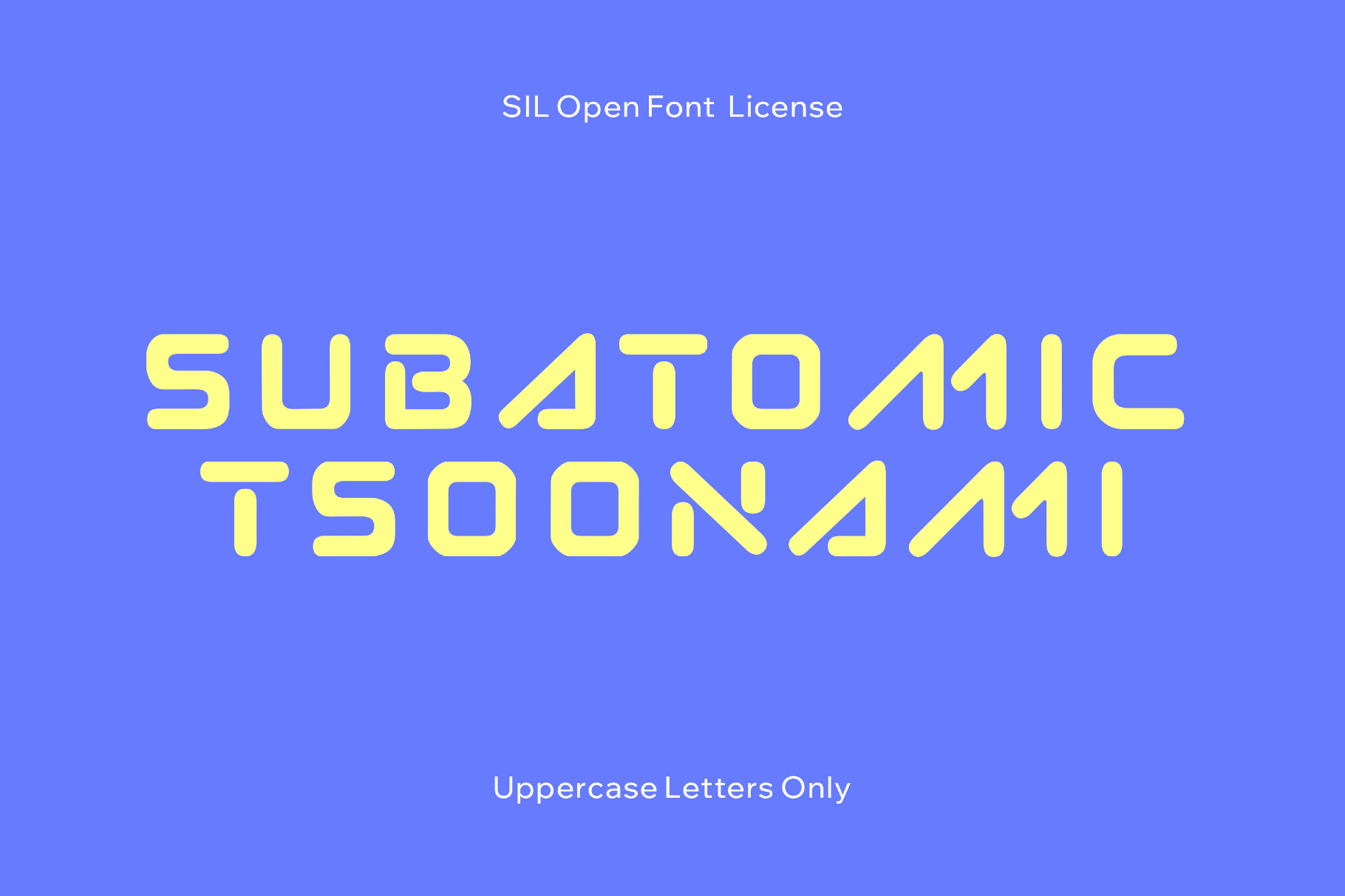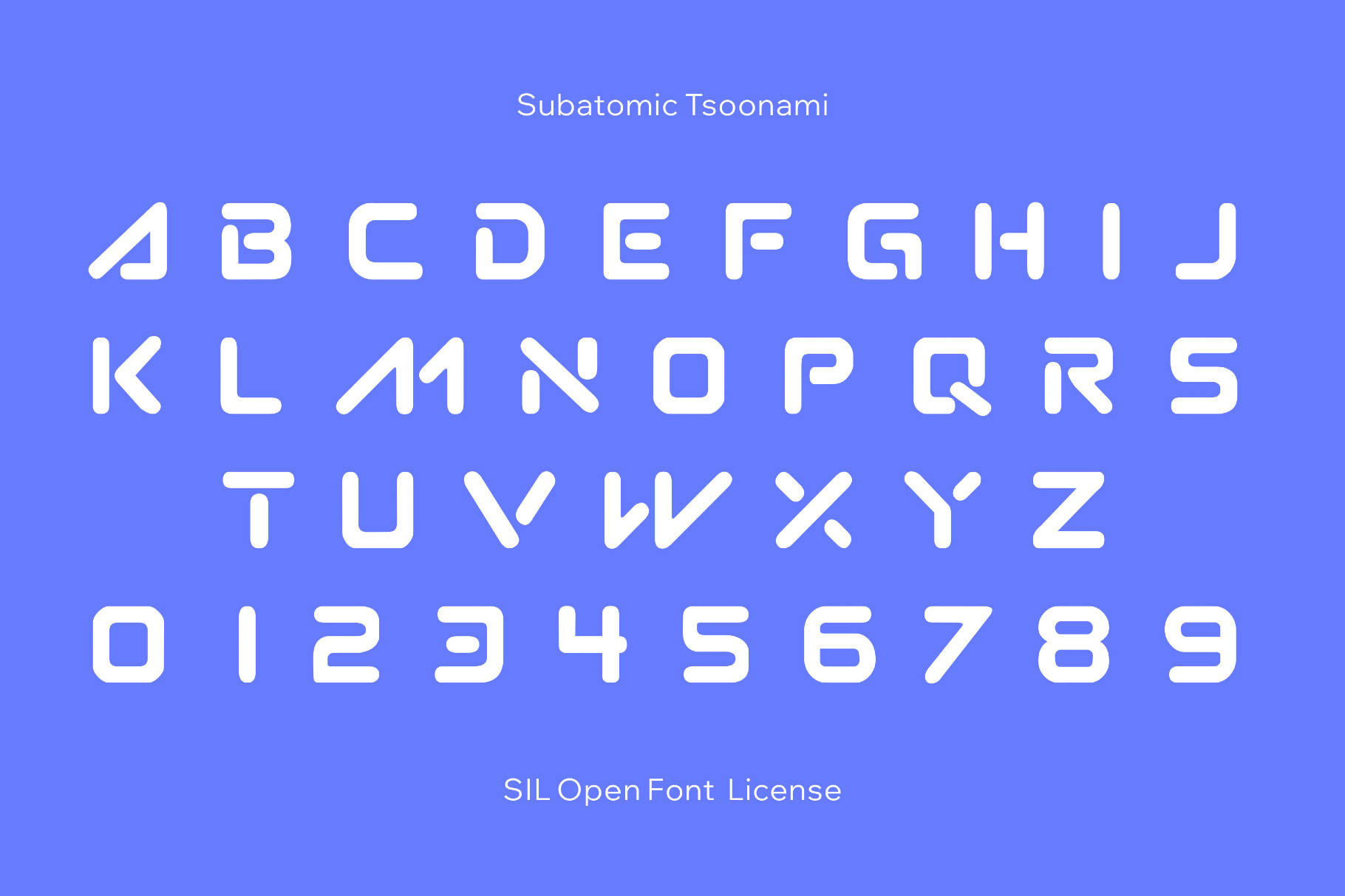
Subatomic Tsoonami - Tech Font
Subatomic Tsoonami
Subatomic Tsoonami’s wide, angular letterforms give this space type a look suited for countdown screens and interstellar broadcasts. The nostalgic charge is a big part of the appeal: it taps into that Toonami-era mood of chrome surfaces, high-stakes narration, and suspiciously intense menu screens.
It's a great match for game titles, poster headlines, merch graphics, motion intros, album covers, stream visuals, tech-flavored campaigns, motion IDs, and fan-made universe branding.
- uppercase letters A–Z;
- numbers, punctuation, and symbols.